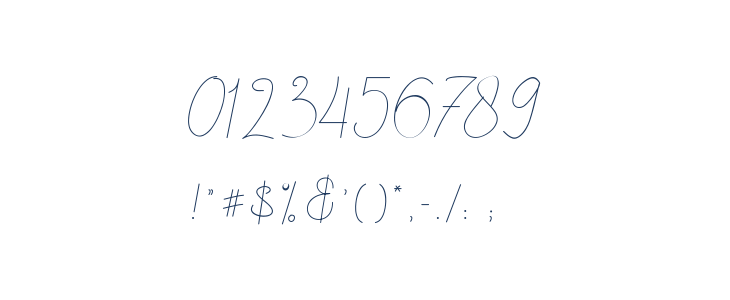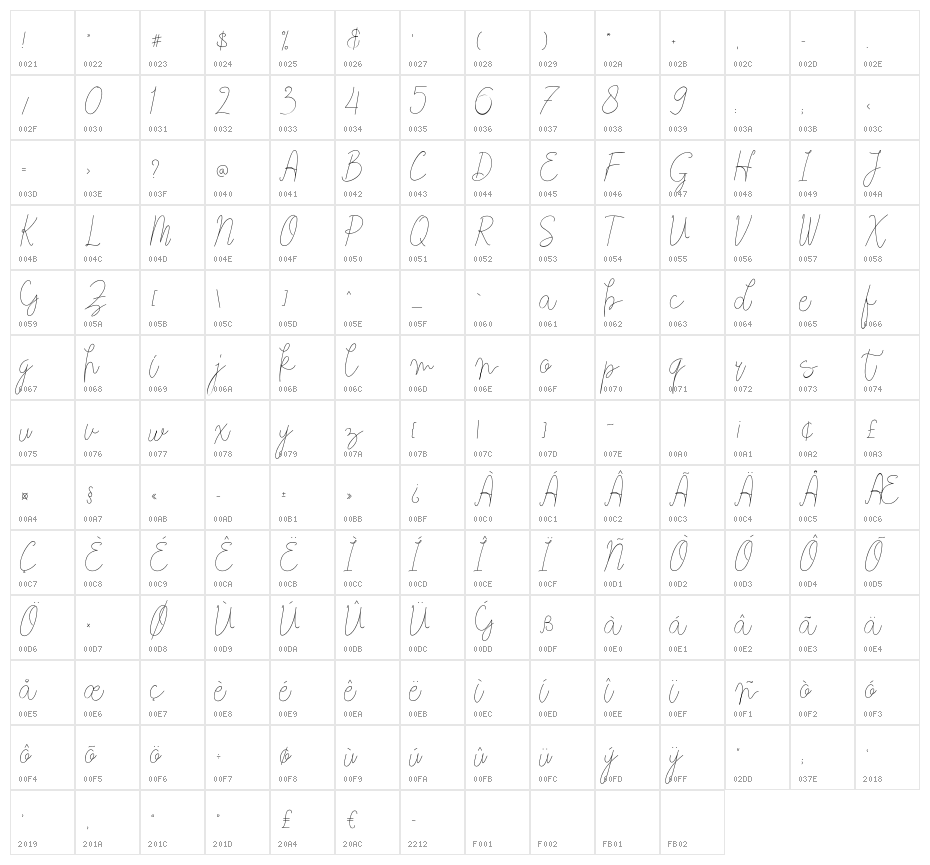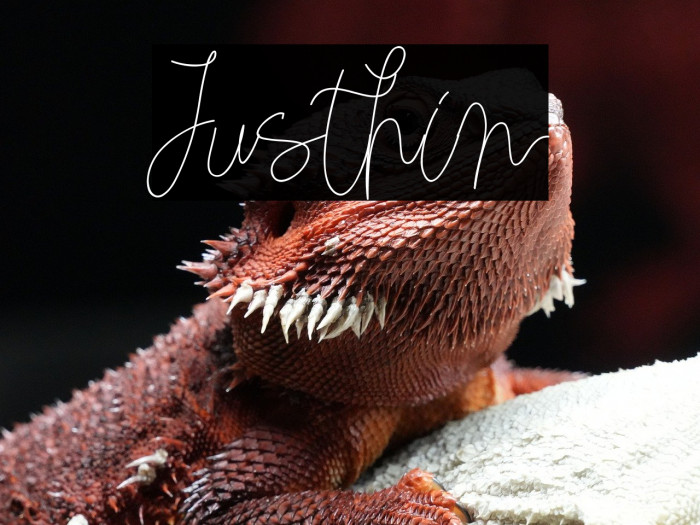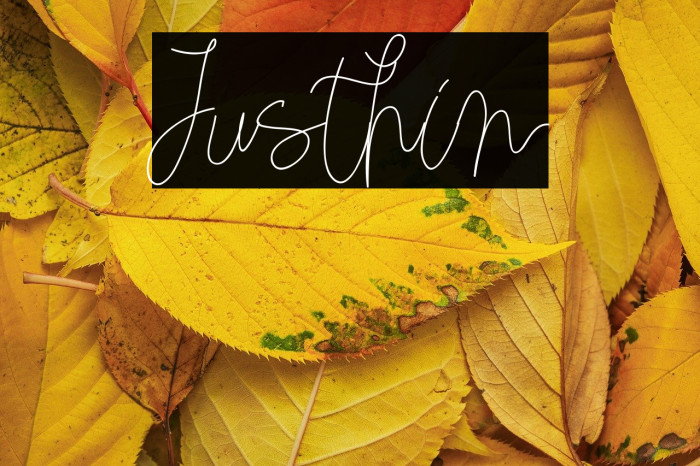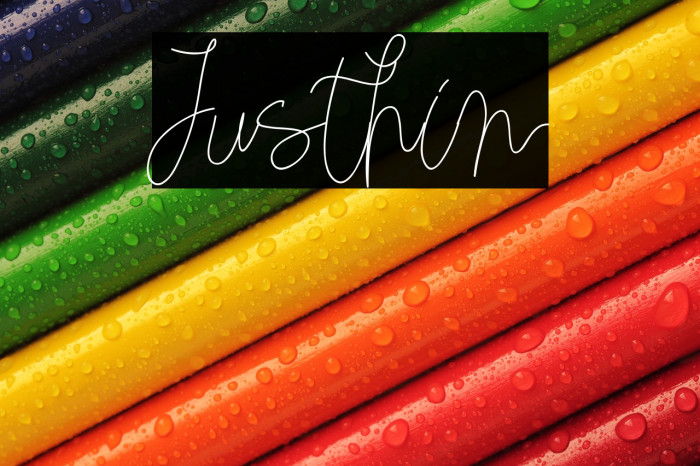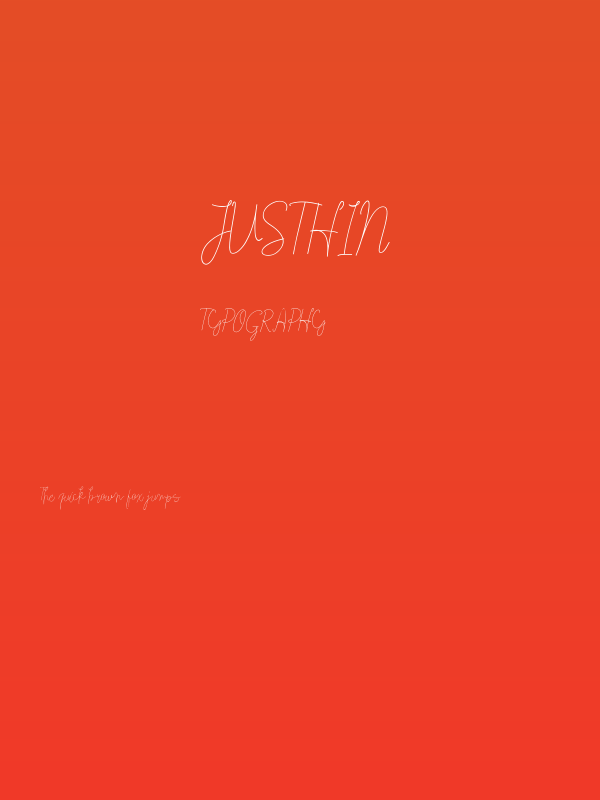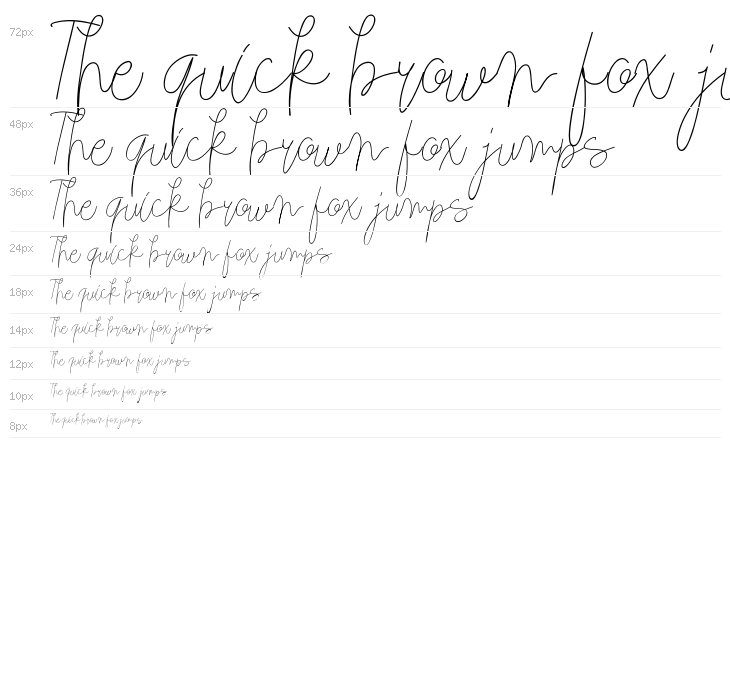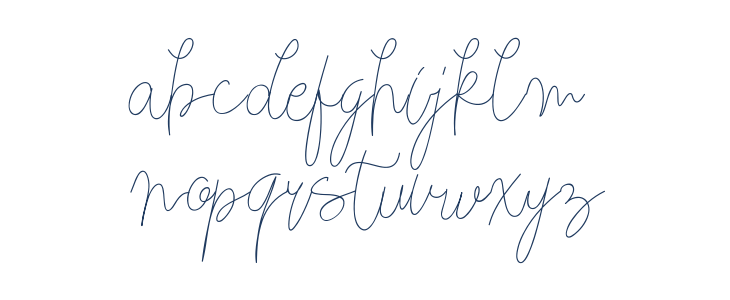
Justhin Font
Justhin Description
This font features a delicate, handwritten style with a flowing, cursive appearance. The characters are elegantly elongated with smooth curves and a consistent stroke width, giving it a graceful and airy feel. The uppercase letters are slightly more structured, while the lowercase letters exhibit a more freeform, whimsical style. The numerals and special characters maintain the same fluidity, ensuring a cohesive look across all elements. This font exudes a sense of sophistication and creativity, making it ideal for projects that require a personal touch.
JUSTHIN UPPERCASE
JUSTHIN LOWERCASE
JUSTHIN OTHER CHARS
| Overall Style | Elegant, Whimsical |
| Proposed Projects | Ideal for wedding invitations, personal branding, greeting cards, and artistic projects. |